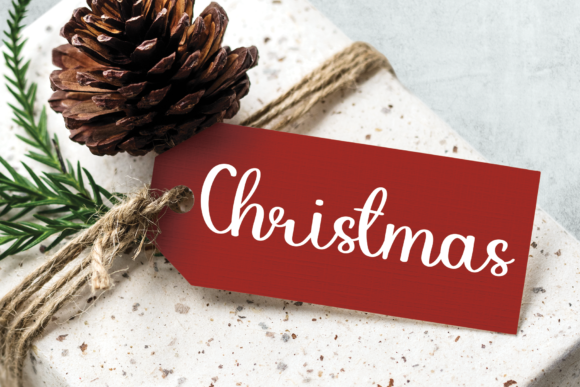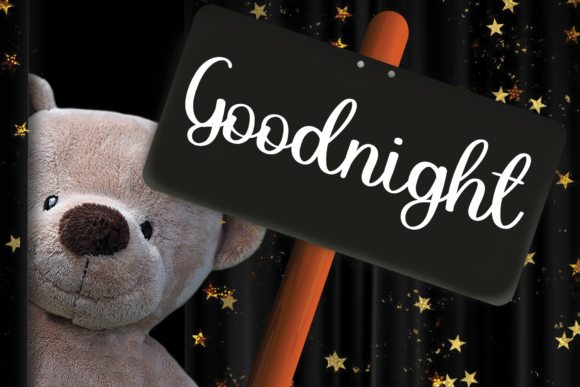
Detective Font
db-ku.com - Script & Handwritten -- it’s a sweet, whimsical, fluid, and thin script font. Featuring characters dancing along a baseline, this font will add a splash of luxury to any design project you want to create!